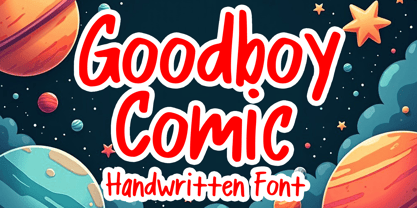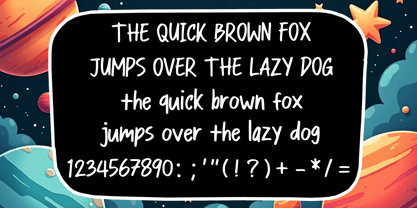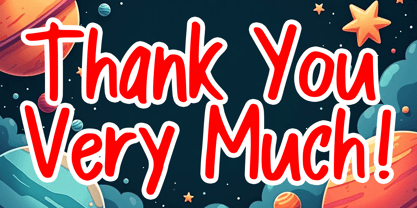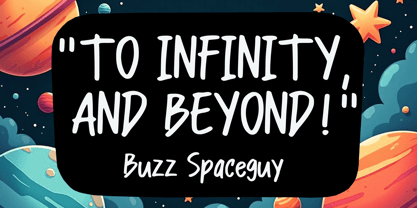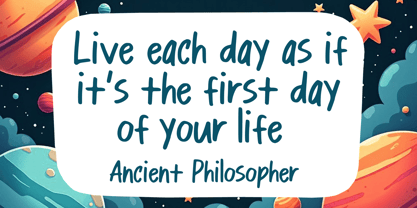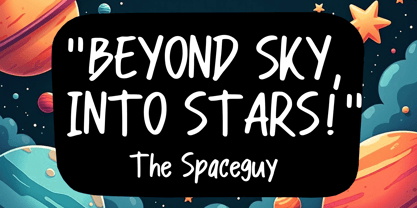
Goodboy Comic
by Mvmet
The Goodboy Comic Font Family was designed by Gabriel Valentinus and published by Mvmet. Goodboy Comic contains 1 styles.
Goodboy Comic is a playful, expressive and versatile marker font. It will elevate a wide range of design projects to the highest level. You can use this font for many design ideas such as stickers, t-shirt designs, amazing logo designs, magazine or book covers, comics, cartoon drawings, and many more. This font will add a super cool touch to your designs!
Designers: Gabriel Valentinus
Publisher: Mvmet
Foundry: Mvmet
Design Owner: Mvmet